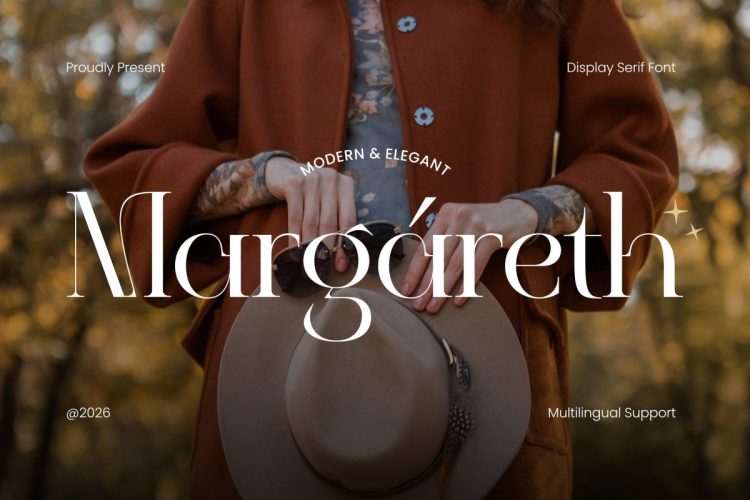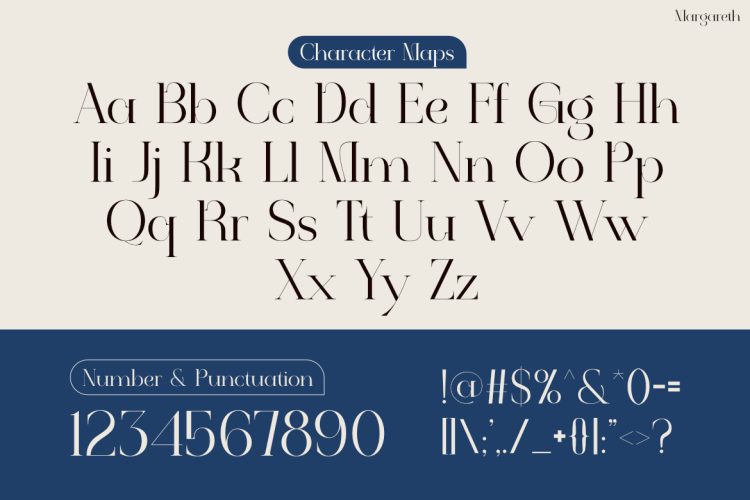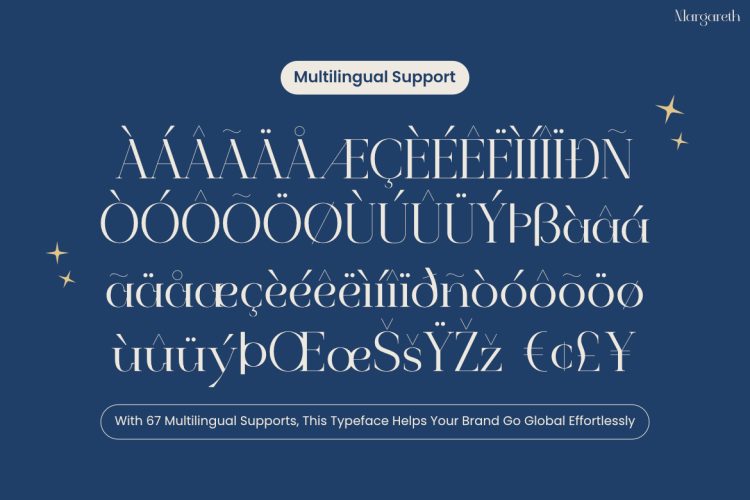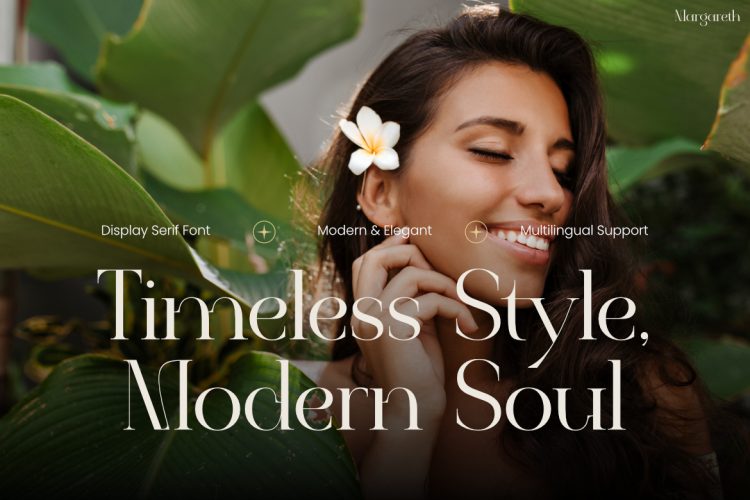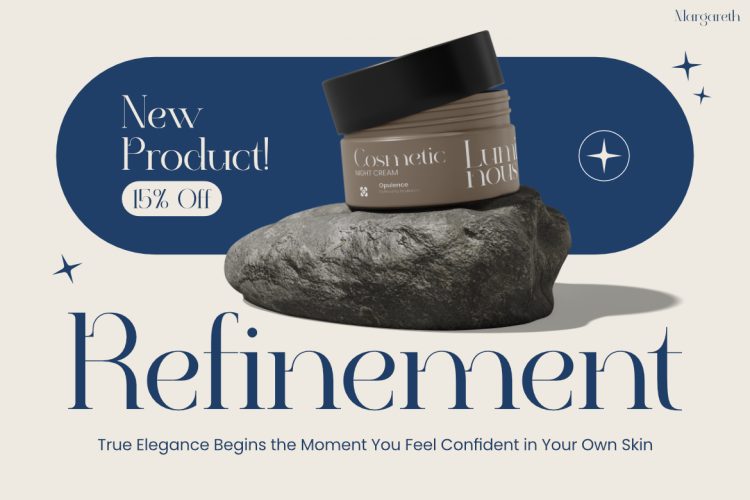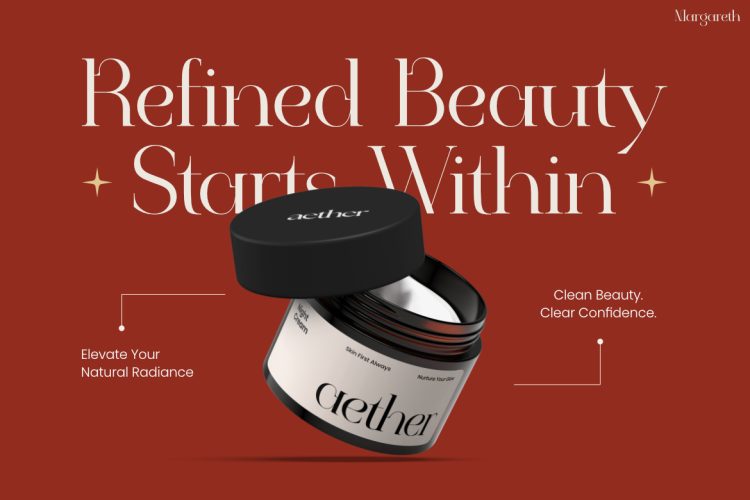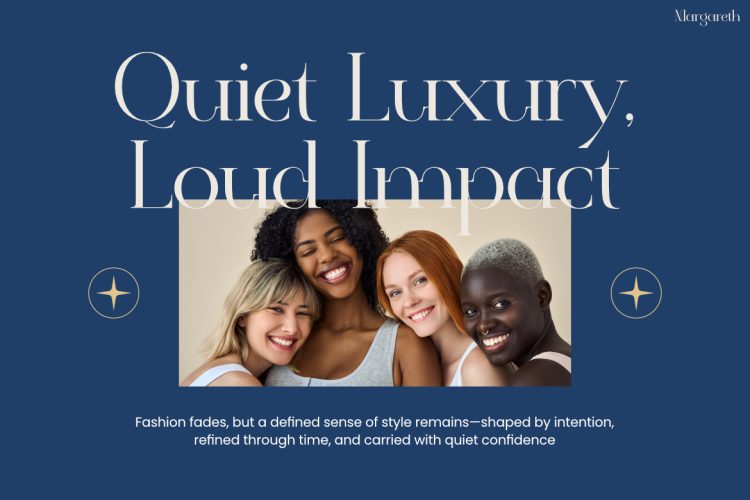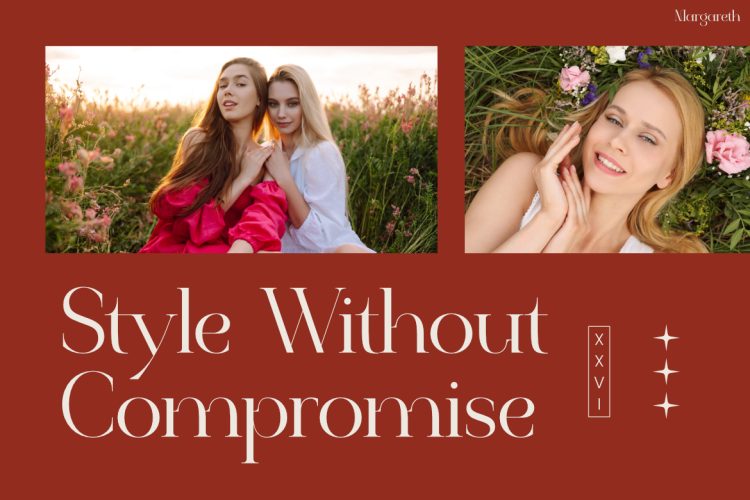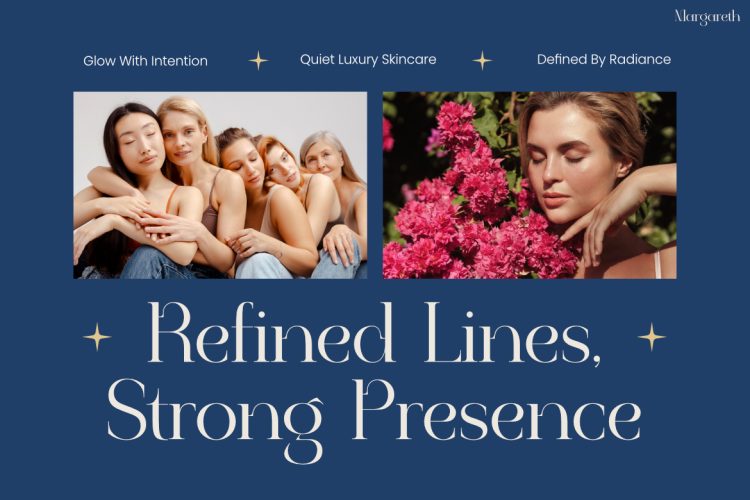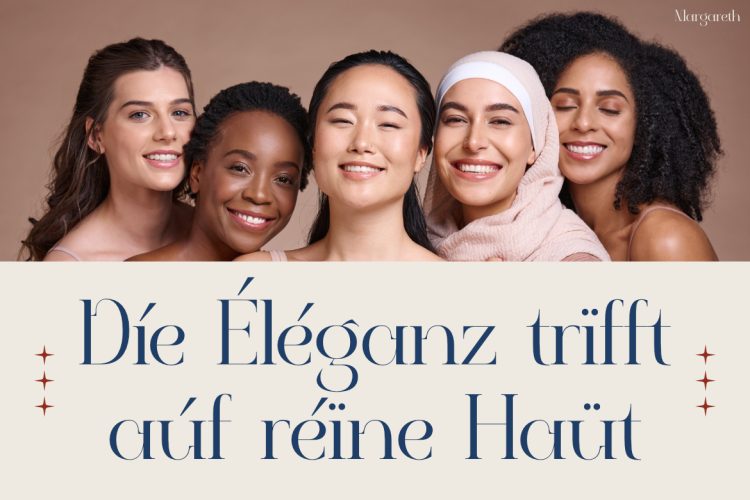
Instagram Font MARGARETH – Timeless Luxury, Pure Elegance
Instagram Font MARGARETH is a graceful modern serif typeface made for elegance, sophistication, and premium charm. Its refined curves and stylish letterforms create a luxurious and polished look. Moreover, the high-contrast strokes help every word stand out beautifully. Its classic yet modern balance makes designs feel clean and unforgettable. Therefore, it is a strong choice for premium visual storytelling.
Instagram Font MARGARETH delivers a premium identity with smooth serif details and beautifully crafted characters. In addition, its multilingual support helps brands communicate globally with style. Whether used for headlines, packaging, fashion promotions, or social media posts, this font adds a soft luxury touch. Furthermore, it makes every layout feel more polished and professional. As a result, your audience quickly notices the premium quality of your brand. With support for 67 languages, it ensures your creativity can reach audiences worldwide.
This font is perfect for beauty brands, skincare packaging, luxury fashion labels, and boutique businesses. Likewise, it works beautifully for wedding invitations and editorial magazines. Additionally, it fits perfume branding, feminine logos, and premium Instagram templates. Designers, content creators, and entrepreneurs will also love its classy style. Because of this flexibility, MARGARETH works well for both print and digital projects.
Finally, bring beauty and confidence into your next project with MARGARETH. If you want typography that feels stylish and professionally polished, this font is the perfect choice. So, let your brand stand out, attract attention faster, and leave a lasting impression.